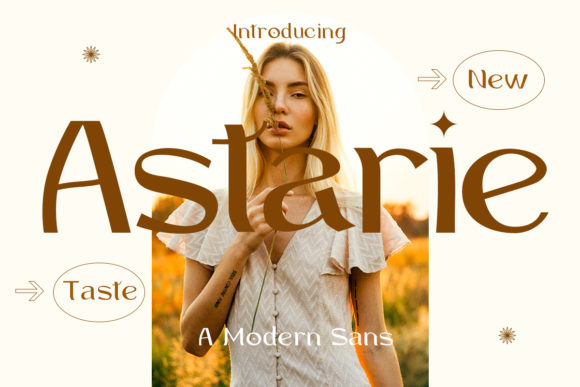
The Astarie Font: Elevate Your Designs with a Modern Display Font
Have you ever been in the middle of a design project, pouring your heart and soul into it, only to hit a roadblock when it comes to choosing the perfect font? I certainly have! It was during one of those moments that I stumbled upon the Astarie font, a modern display font that has since become a staple in my design toolkit.
Astarie is a trendy and not-so-stiff font that can instantly elevate your posters, covers, or logos, making them more stunning and attention-grabbing. Its versatility makes it perfect for logos, headlines, titles, and minimal layouts. In this article, I’ll share my experience with Astarie, its features, and how to make the most of it in your designs.
An Honest Review of Astarie Font
What I Love About Astarie ✨
• 🌟 Unique and modern design that stands out in any design project
• ✅ Highly versatile and can be used for various design applications
• 💡 Excellent for logos, headlines, titles, and minimal layouts
• 🎨 Supports OpenType features, glyphs, and stylistic alternates for added creativity
• ⚠️ Limited use for body text due to its display font nature
• ⚠️ May require some experimentation to find the perfect size and spacing for your design
The Backstory of Astarie Font
Astarie was designed with the modern designer in mind. Its creator wanted to craft a font that was both trendy and versatile, perfect for a wide range of design applications. The result is a font that’s both stylish and functional.
Q: What type of designs is Astarie best suited for?
A: Astarie is perfect for logos, headlines, titles, and minimal layouts. Its modern design makes it ideal for creative and trendy designs.
Q: Can I use Astarie for body text?
A: While Astarie is a beautiful font, it’s not recommended for body text due to its display font nature. It’s best used for headings and titles.
Q: Does Astarie support OpenType features?
A: Yes, Astarie supports OpenType features, glyphs, and stylistic alternates, giving you added creative control over your designs.